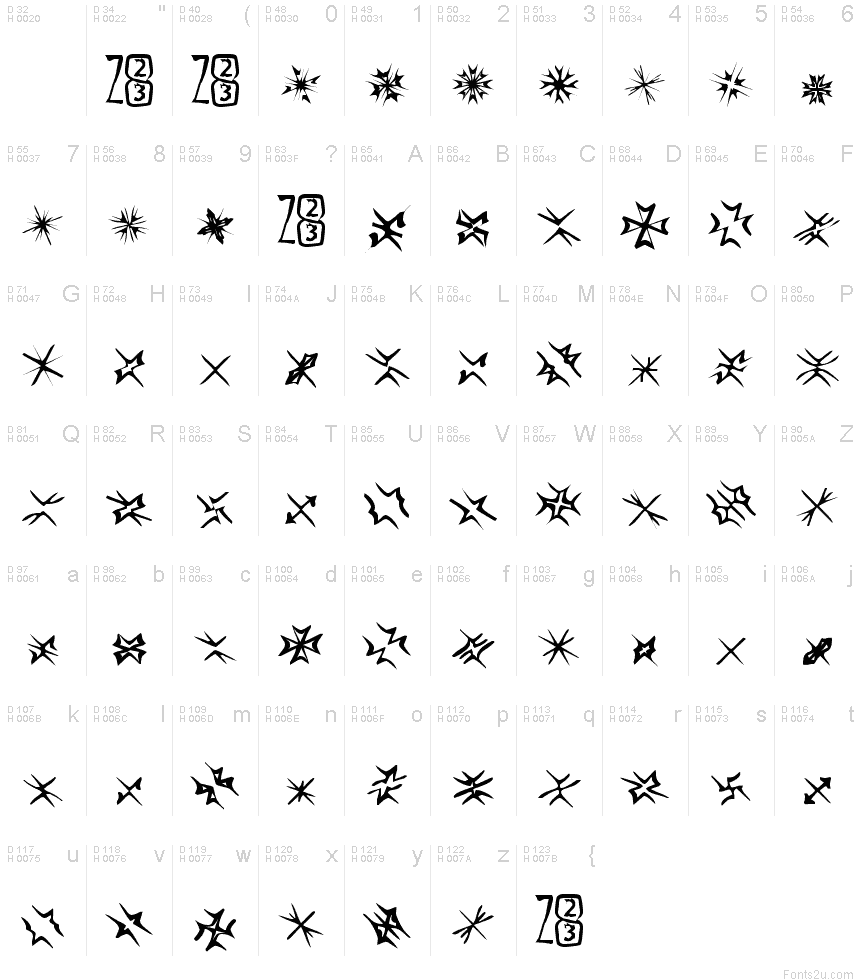
Zone23_foopy3
Zone23 Foopy3 font by Zone23 is a free dingbat typeface that explodes with jagged, hand-drawn starbursts and electric zigzags. Each mark feels like it was slashed in wet ink-irregular, punchy, and a little chaotic-so you get instant energy without having to draw custom icons. The shapes range from wiry streaks to dense, spiky bursts, giving you a whole toolkit of accents for calling out moments of impact.
Using Zone23 Foopy3, you can drop bold sparks into gig posters, zines, album covers, experimental logos, web banners, and edgy social graphics. These dingbats work beautifully as bullet points, corner flourishes, or behind text as punchy spot graphics; just keep them large and bold for maximum crackle. Pair this free font with a clean, neutral sans serif to let the raw, scribbled shapes stay loud and unmistakable.